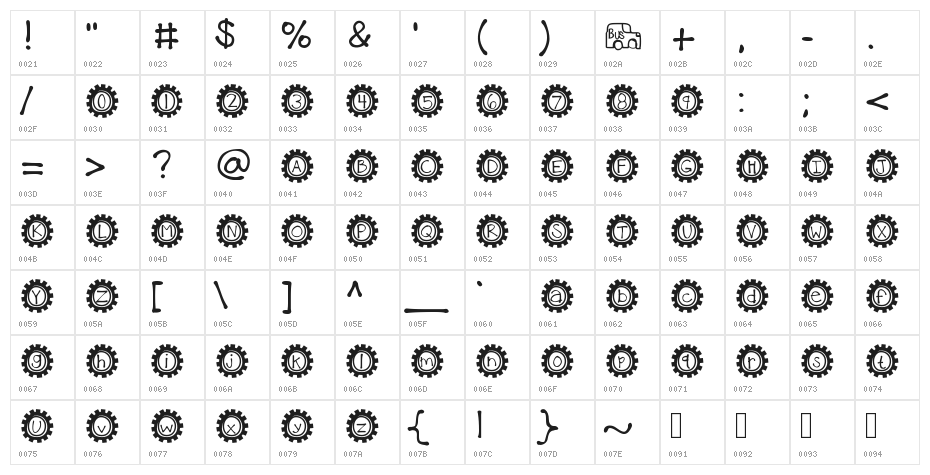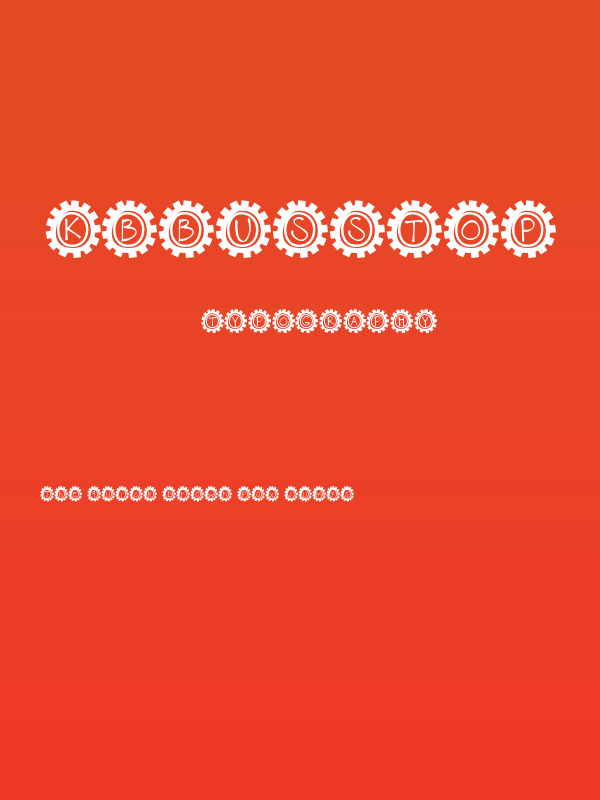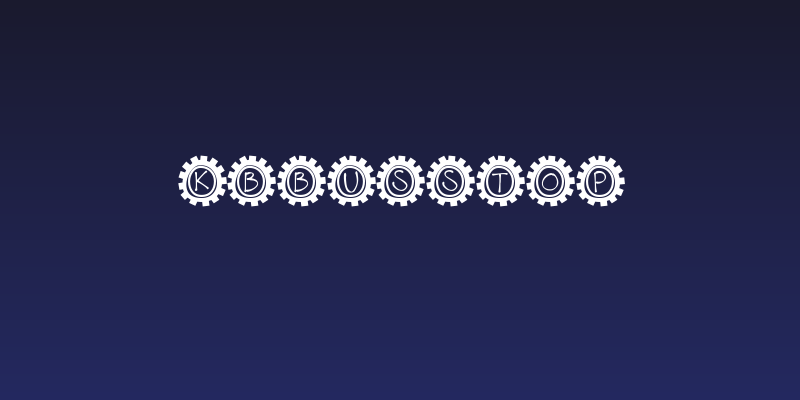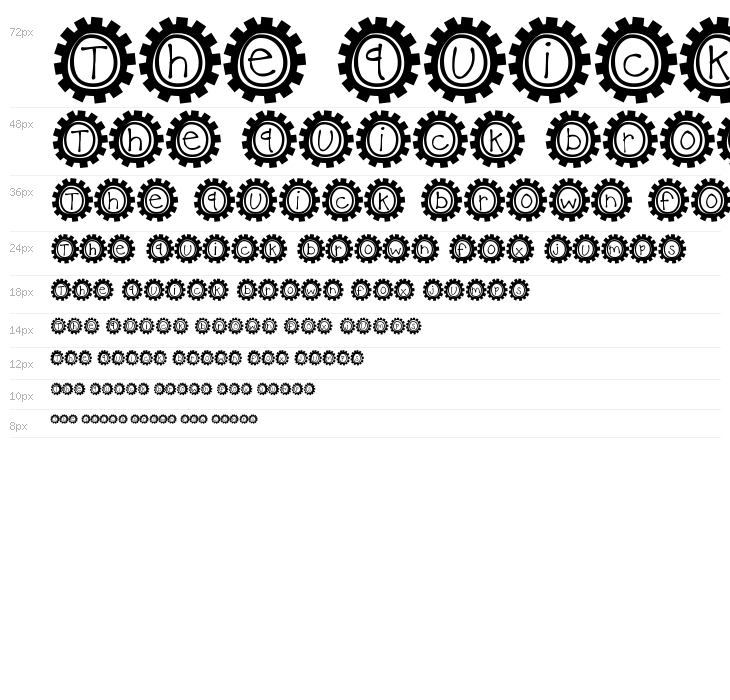
KBBusStop Font
KBBusStop Description
This font features a unique and playful design where each character is enclosed within a gear-like circle, giving it an industrial and mechanical feel. The letters are bold and clear, with a consistent stroke width that ensures readability. The uppercase and lowercase letters maintain a uniform style, while the numbers and special characters are designed to match the overall theme. This font would be ideal for projects that require a fun, quirky, or thematic approach, such as children's books, educational materials, or themed event posters.
| Proposed Projects | Ideal for children's books, educational materials, themed event posters, and playful branding. |